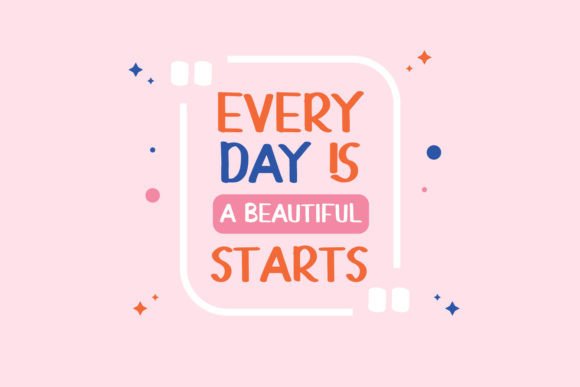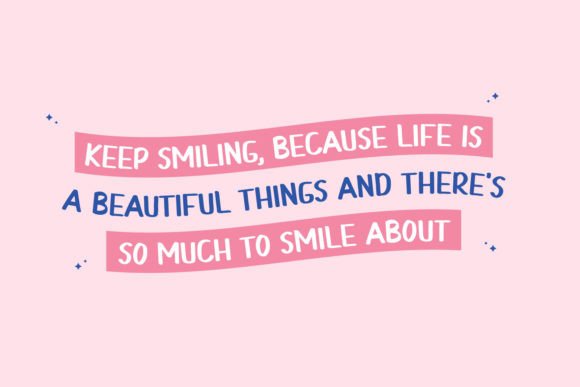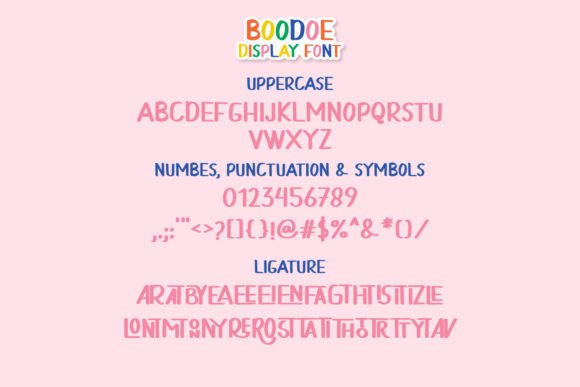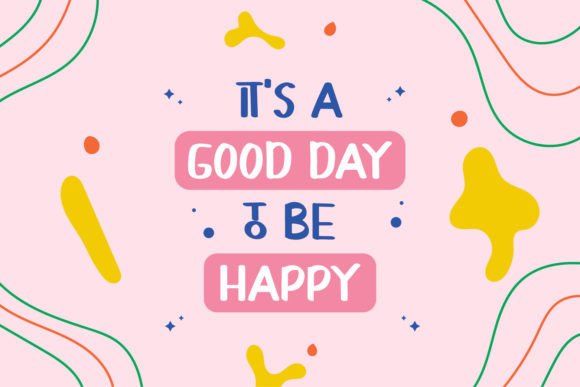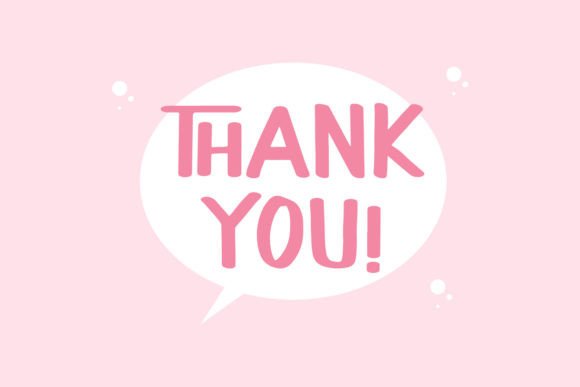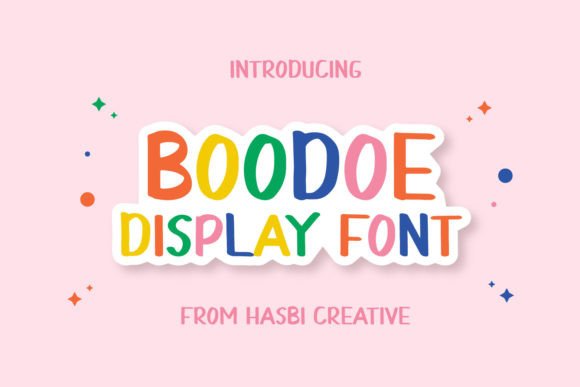
Introducing Boodoe Display Font: The Ultimate Playful Typeface for Creative Projects
Are you a designer, crafty enthusiast, or simply someone who loves to add a personal touch to their creative projects? Look no further than the Boodoe Display Font, a super fun and playful hand-lettered typeface that’s perfect for a wide range of applications. From headings and flyers to greeting cards, product packaging, and more, this versatile font is sure to bring a smile to your face and a touch of personality to your designs.
What Makes Boodoe Display Font So Special?
Boodoe Display Font is a unique and eye-catching typeface that’s been carefully crafted to add a playful and whimsical touch to your designs. Its hand-lettered style gives it a friendly and approachable feel, making it perfect for projects where you want to convey a sense of fun and creativity. Whether you’re designing a logo, creating a poster, or simply adding a personal touch to a gift, this font is sure to make your project stand out.
One of the best things about Boodoe Display Font is its versatility. It’s perfect for a wide range of projects, including:
- Headings and Titles: Add a playful touch to your headings and titles with this fun and quirky font.
- Flyers and Brochures: Create eye-catching flyers and brochures that are sure to grab attention.
- Greeting Cards: Add a personal touch to your greeting cards and make them truly special.
- Product Packaging: Make your product packaging stand out with this unique and playful font.
- Book Covers: Create eye-catching book covers that are sure to grab attention.
- Printed Quotes: Add a touch of personality to your printed quotes and make them truly special.
- Logotypes: Create a unique and memorable logotype for your brand or business.
- Apparel Designs: Add a playful touch to your apparel designs and make them truly stand out.
- Album Covers: Create eye-catching album covers that are sure to grab attention.
Why Choose Boodoe Display Font?
So why choose Boodoe Display Font for your next project? Here are just a few reasons:
- Unique and Eye-Catching: This font is truly one-of-a-kind, and is sure to make your project stand out.
- Playful and Whimsical: Add a touch of personality to your designs with this playful and whimsical font.
- Versatile: Perfect for a wide range of projects, from headings and titles to product packaging and more.
- Easy to Use: This font is easy to use and can be easily integrated into your design workflow.
Tips for Using Boodoe Display Font
Here are a few tips for getting the most out of Boodoe Display Font:
- Experiment with Different Sizes: Try out different font sizes to see what works best for your project.
- Play with Color: Experiment with different colors to add an extra touch of personality to your designs.
- Combine with Other Fonts: Try combining Boodoe Display Font with other fonts to create a unique and eye-catching look.
In conclusion, Boodoe Display Font is a super fun and playful hand-lettered typeface that’s perfect for a wide range of creative projects. Its unique and eye-catching style makes it perfect for designers, crafty enthusiasts, and anyone looking to add a personal touch to their designs. With its versatility, ease of use, and playful personality, this font is sure to become a favorite in your design toolkit.